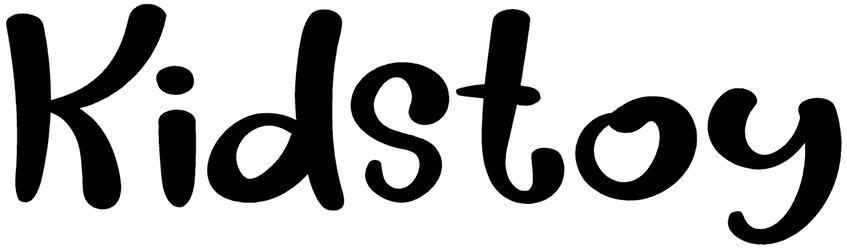
Kidstoy Font
Replacing the normal and expected sharp and rounded corners in Kidstoy reduces eye strain and makes it easier for the reader to read the content.
This cartoon font has smooth surfaces that are associated with an intimate touch and evoke a pleasant and comfortable feel. Using the round letters of this baby font, you can convey a childish feeling and create beauty in simplicity. This bold font is suitable for packaging baby food, shampoo, and diapers.
Kidstoy is a cool looking and friendly display font. Whether you are using it for cartoon-related designs, children’s games, quotes, titles, brand names, book covers, posters, or just any creation that requires a touch of beauty, this font is a great choice.